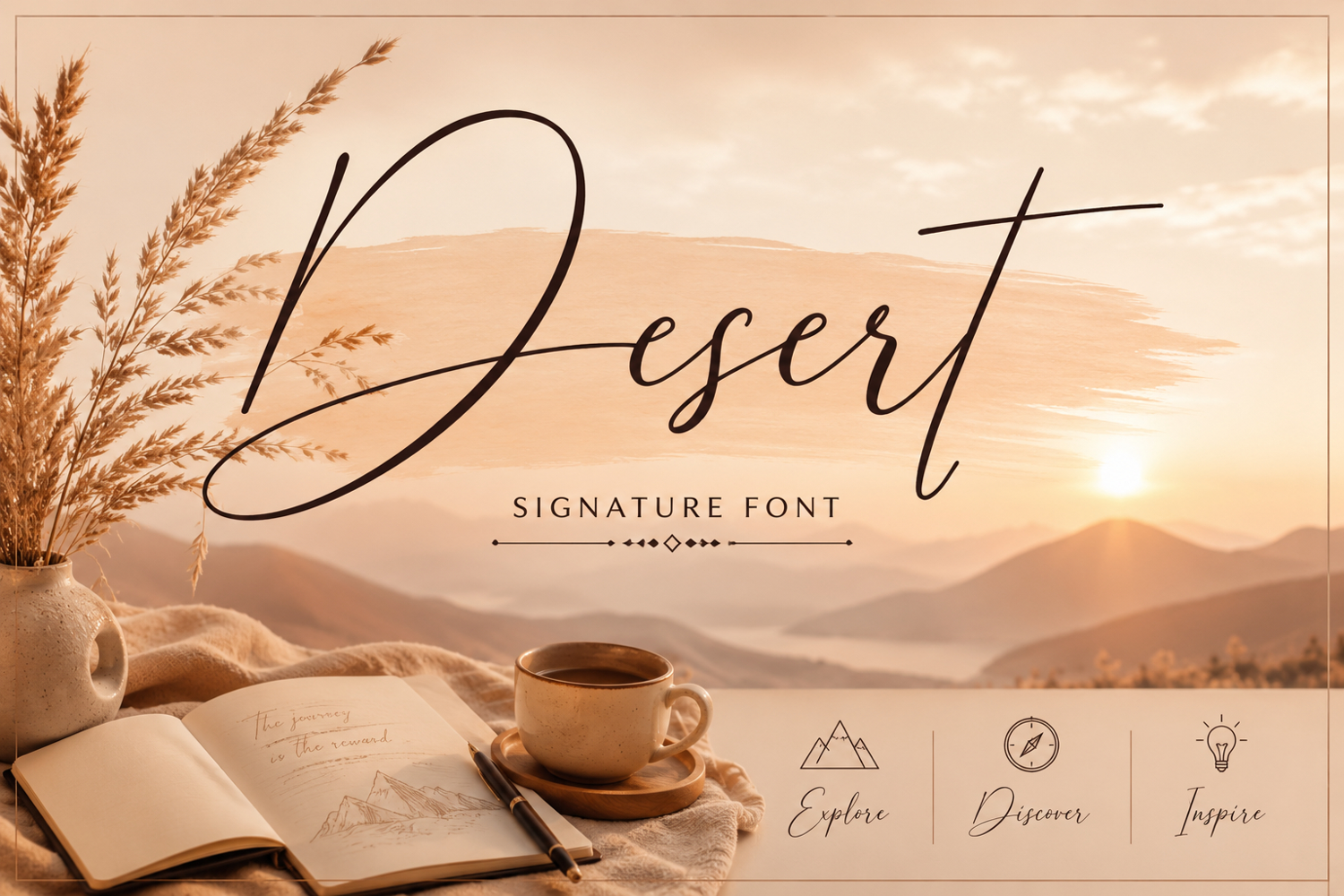
Desert
Desert a handwritten font. It features ligatures characters that will take your projects to the next level!
so it can make your product look authentic and attractive, and also Multilingual support!!!